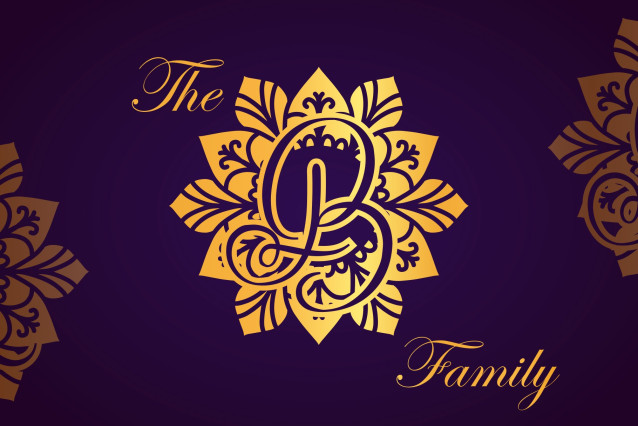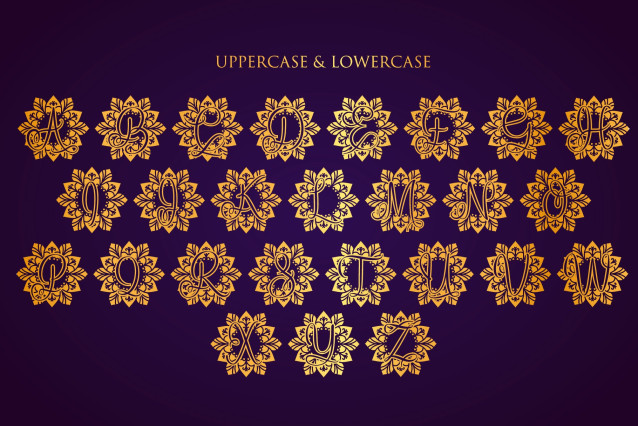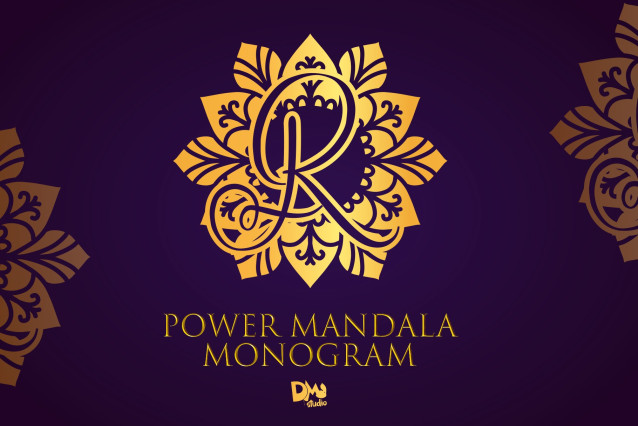
Power Mandala Monogram Font
Power Mandala Monogram is a strong and commanding monogram font that blends dynamic mandala patterns with bold letterforms. Designed to evoke strength, confidence, and creative force, this typeface is ideal for empowering branding, motivational products, wellness packaging, yoga studios, and spiritual merchandise. The fusion of geometric precision and ornamental energy makes it perfect for impactful designs that radiate inner strength.